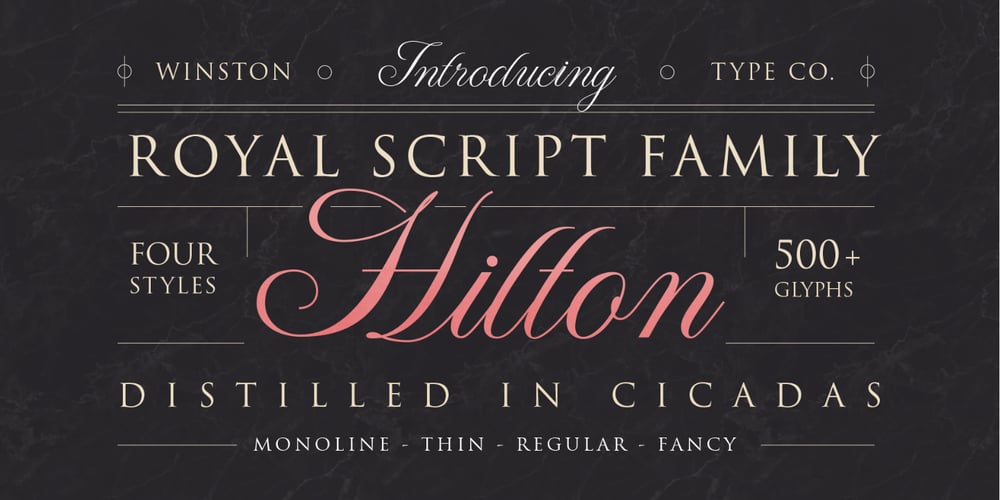
WT Hilton Script
WT Hilton Script font
WT Hilton Script Font Family was designed by D Sandi Sjahputra and published by Winston Type Co.. WT Hilton Script contains 5 styles and family package options. WT Hilton is a font family of royal script that inspired from the Spencerian era in 1840. The strokes are graceful and rhythmic, and letterforms are characterized by flowing loops and flourishes. WT Hilton consists of four styles that variables from the Monoline to the thicker one called Hilton Fancy, each style are stands on its own character. With 100+ language support, WT Hilton is well-suited for any project such as prints, branding, magazine, headline, poster, packaging, weddings, headline, movie, title, logos, branding, invitations, quotes, social media, websites, magazine and so much more.